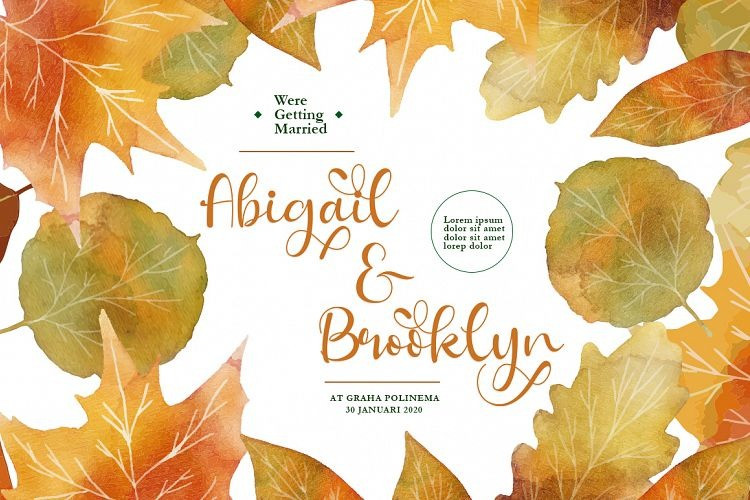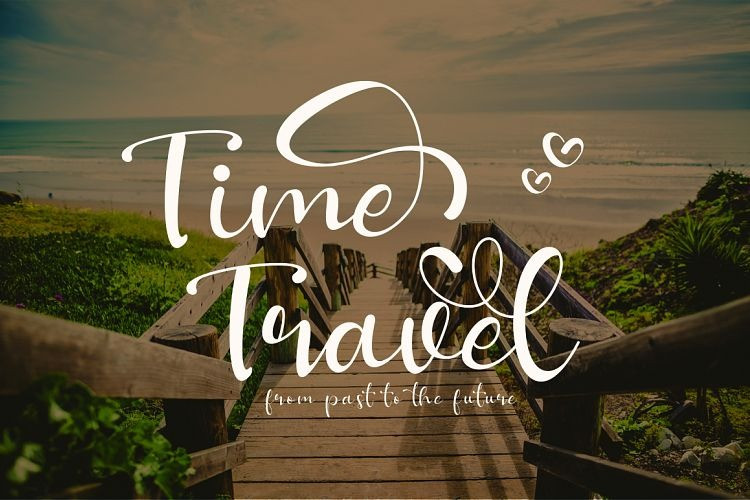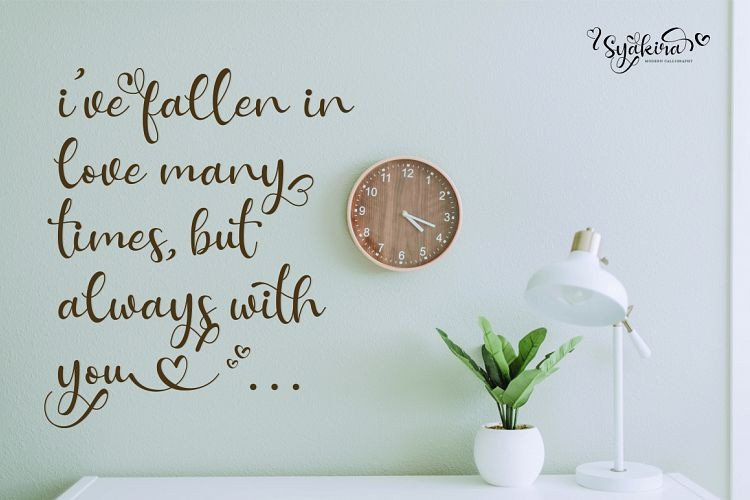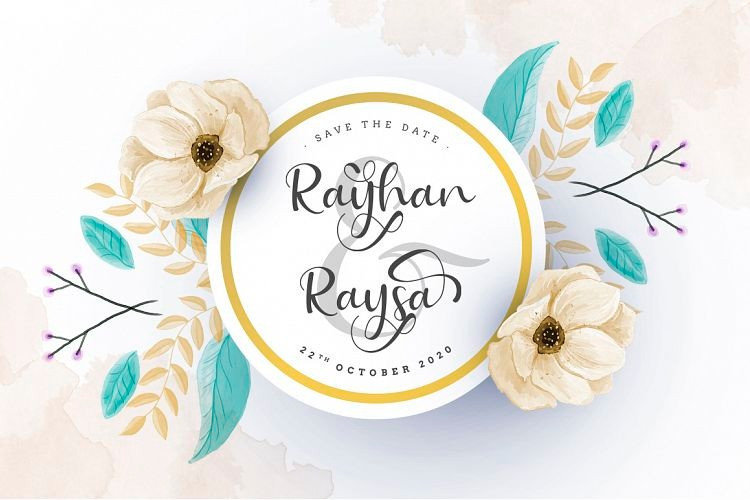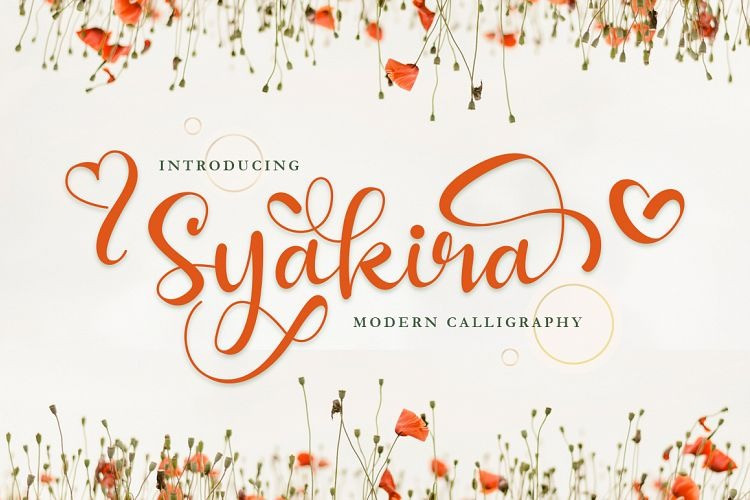
Syakira Calligraphy Font
Hello, friends. “Syakira Font” is a Special for Valentine’s Day. use this romantic font for all the designs that you are working on. Syakira Calligraphy font has a beautiful alternative style. It’s designed and shared by EmbunStudio. It’s a beautiful calligraphy with beautiful stylishtic alternate, swashes and decorate, suitable for your every project such as, frame design, invitation, greeting cards and many more. Make your every project look perfect and beautiful.